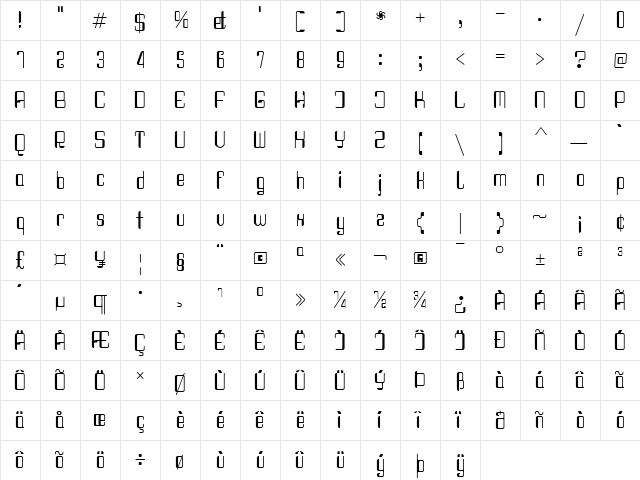
Haike Cond Regular
| Foundry | Otto Maurer |
| Designer | Otto Maurer |
| Year | 2010 |
Design Context for Haike Cond Typeface
Haike Cond takes a measured approach to typography — its balanced proportions and neutral character make it a reliable workhorse for both digital and print work. The condensed width makes it efficient for tight spaces without sacrificing legibility.